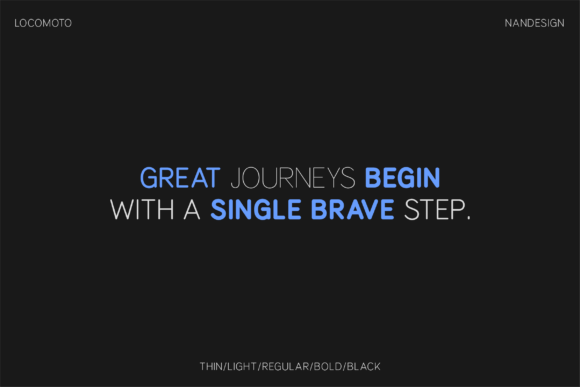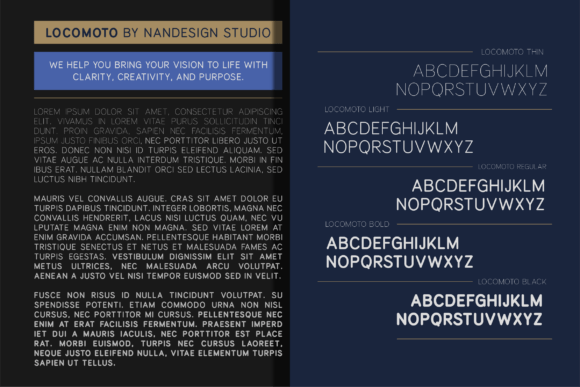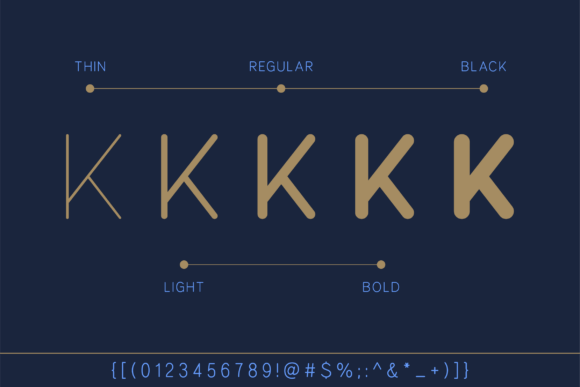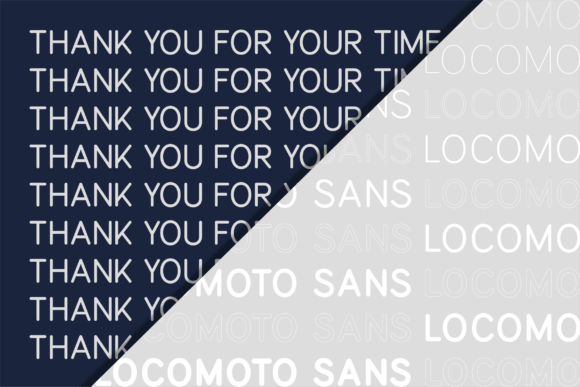
Introduction to Locomoto Rounded Font
Locomoto Rounded offers a softer and more approachable take on the original sans serif style.
Featuring smooth curves and friendly edges, this font is ideal for creative branding, childrenโs books, product packaging, lifestyle blogs, and tech startups that seek a balance between modernity and warmth The rounded terminals add personality and charm without sacrificing legibility or structure.
Key Features of Locomoto Rounded Font
Why Choose Locomoto Rounded Font?
Locomoto Rounded Font offers exceptional quality and versatility, making it a valuable addition to your design toolkit. Whether you’re creating for personal projects or commercial use, Locomoto Rounded Font delivers professional results.